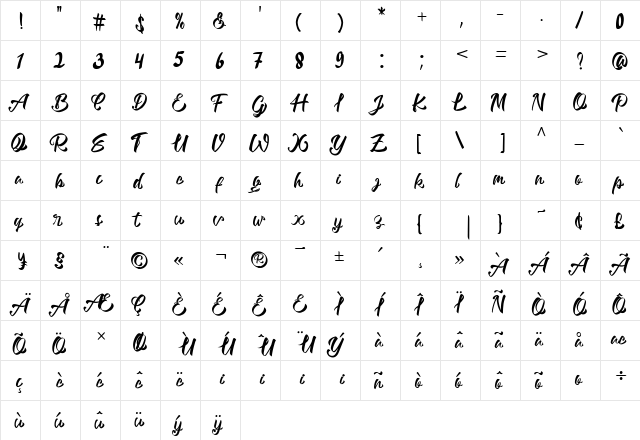
rockies Regular Regular
| Designer | Faisalnd |
Design Context for rockies Regular Typeface
rockies Regular is a composed and adaptable typeface that performs quietly and consistently across a wide range of design contexts.